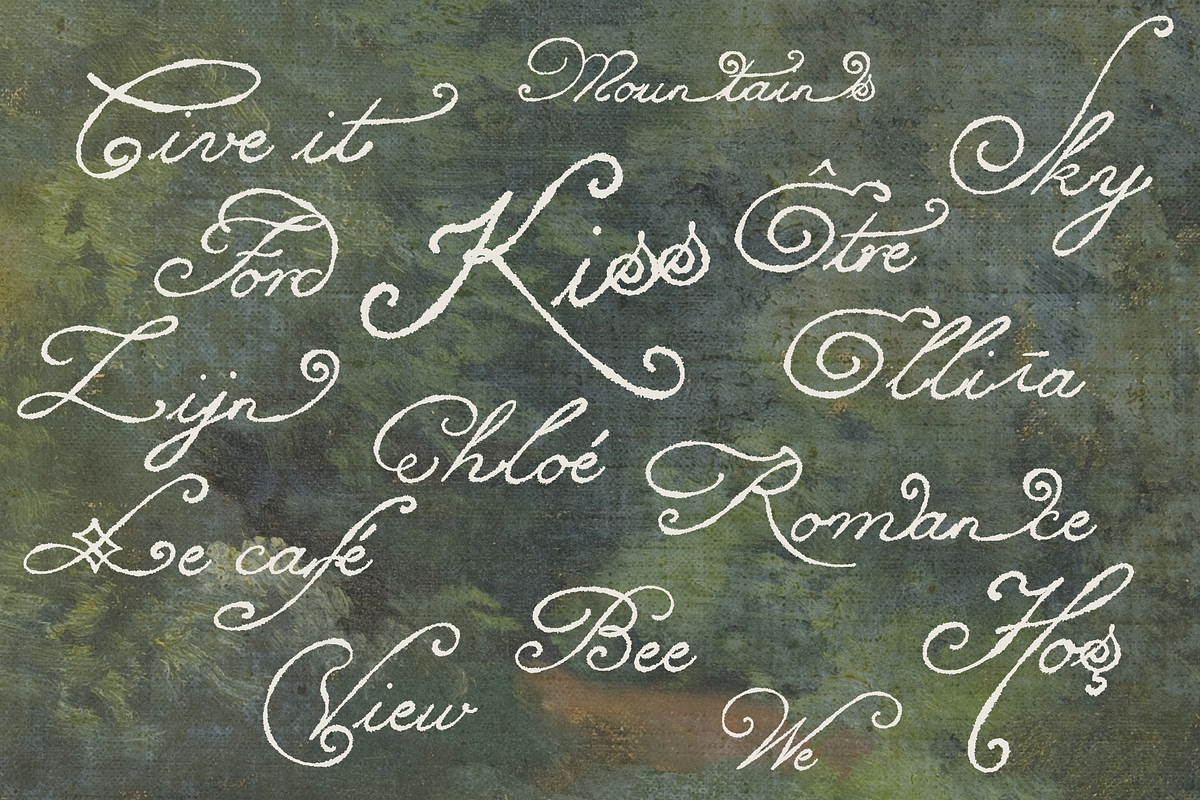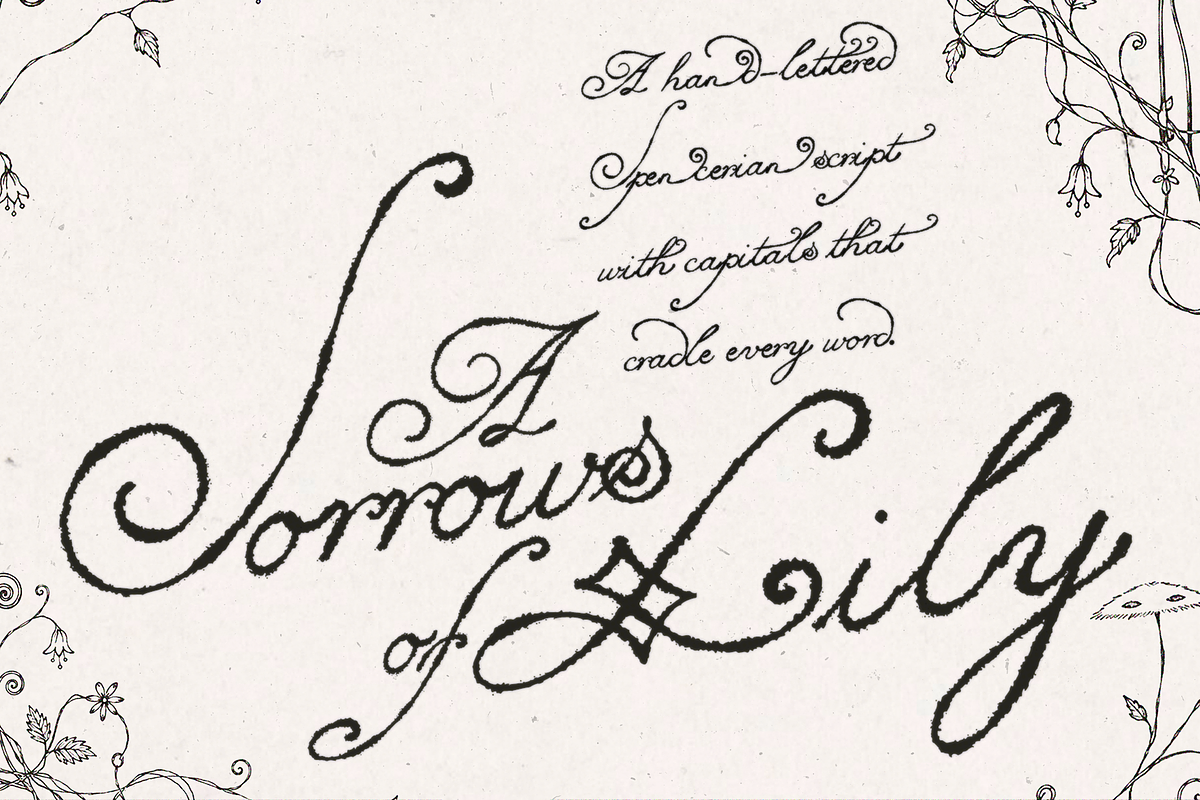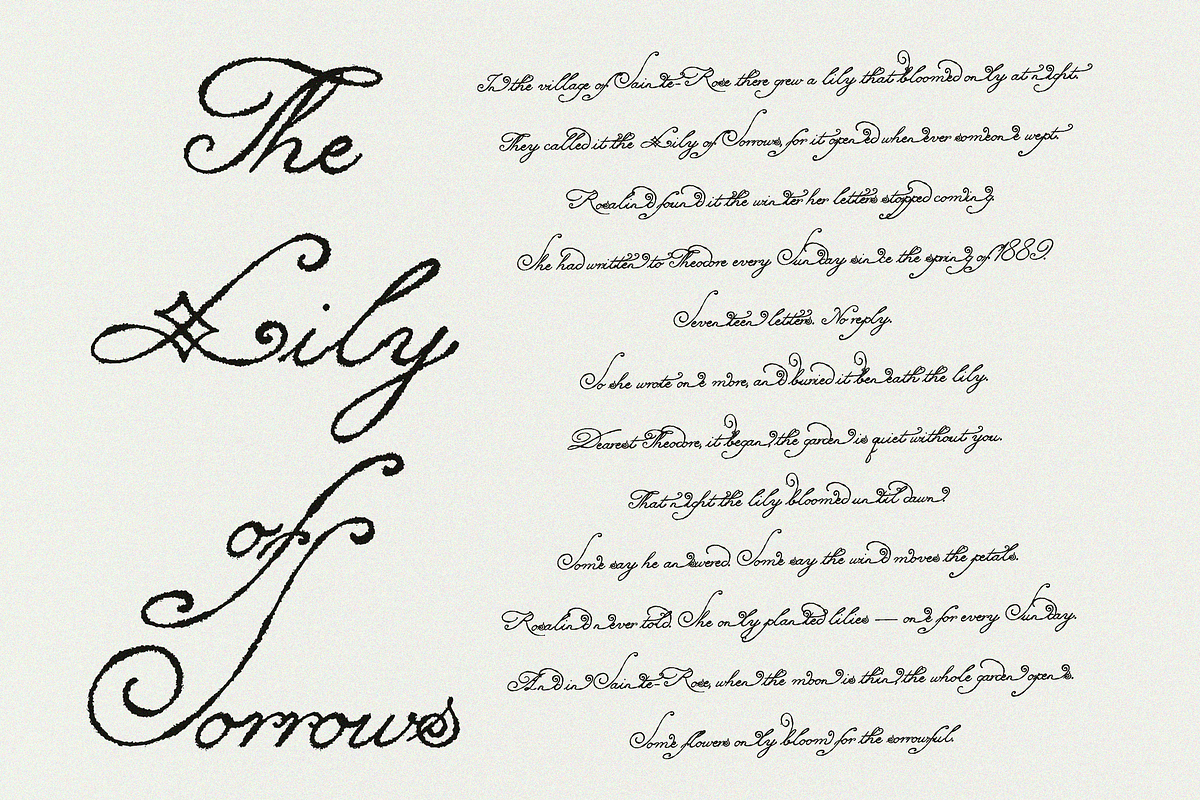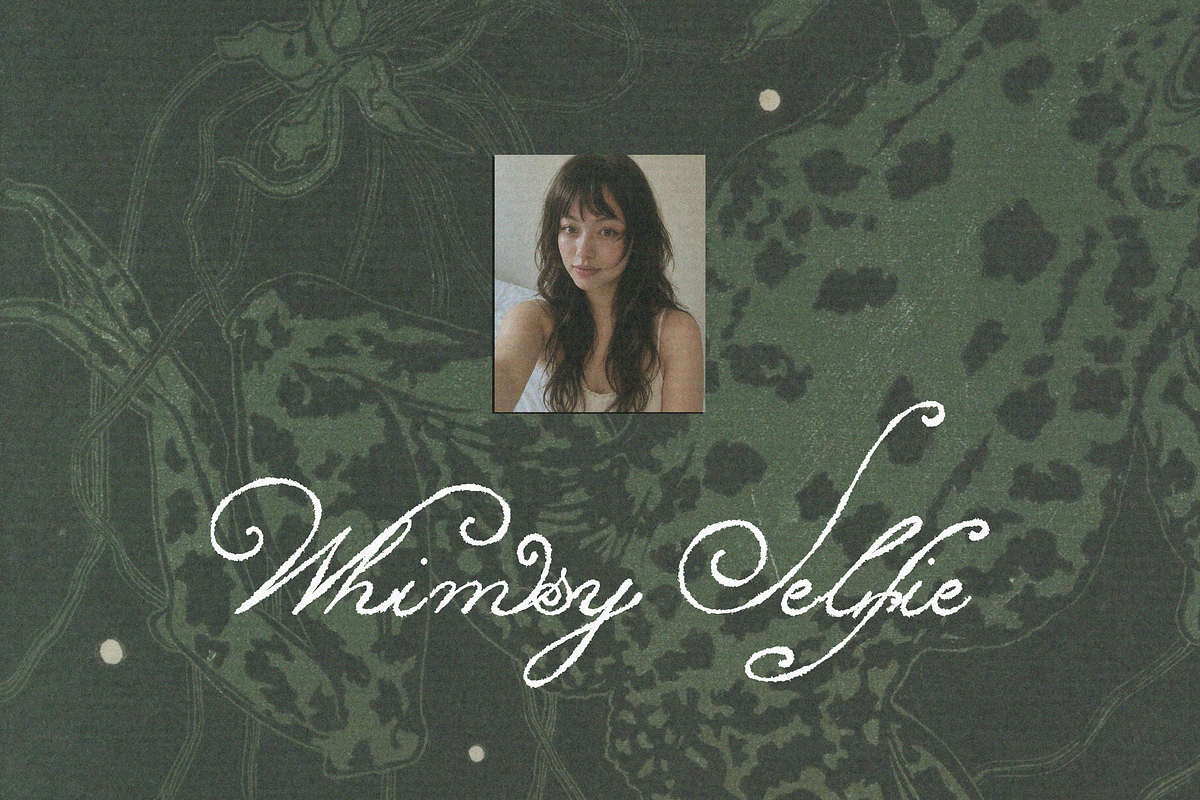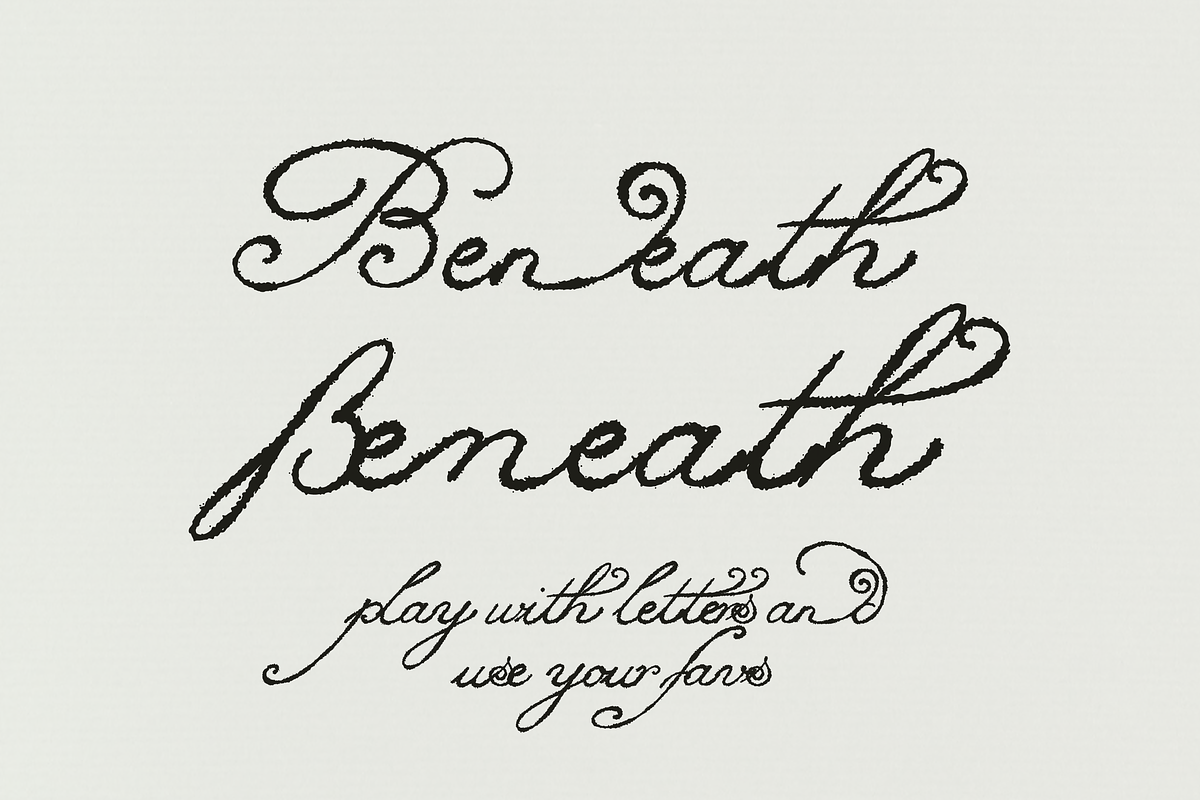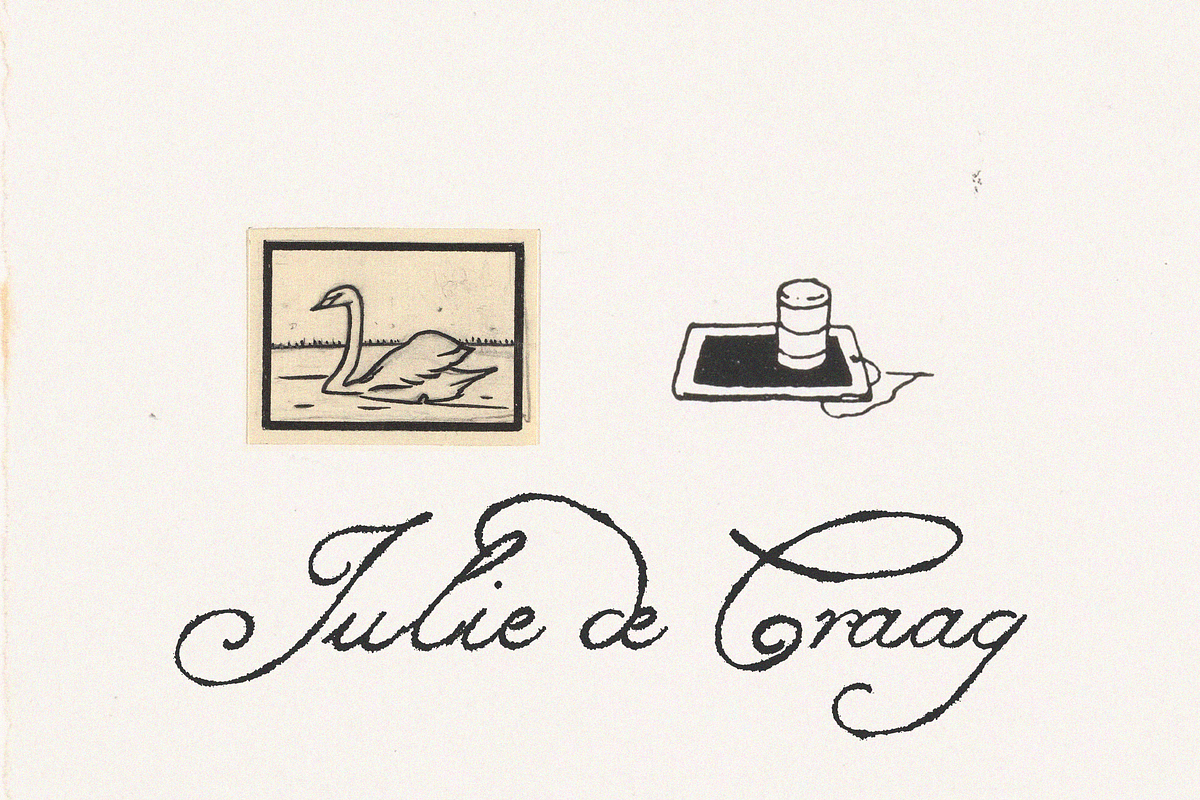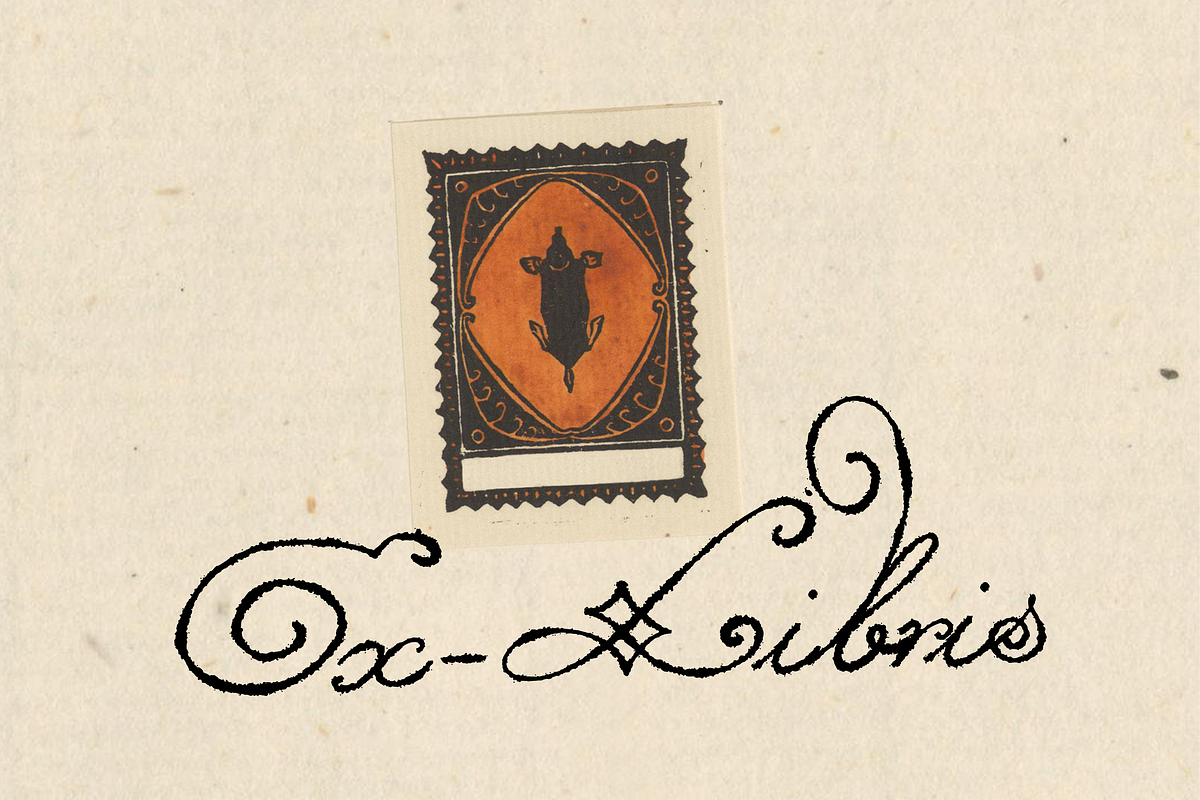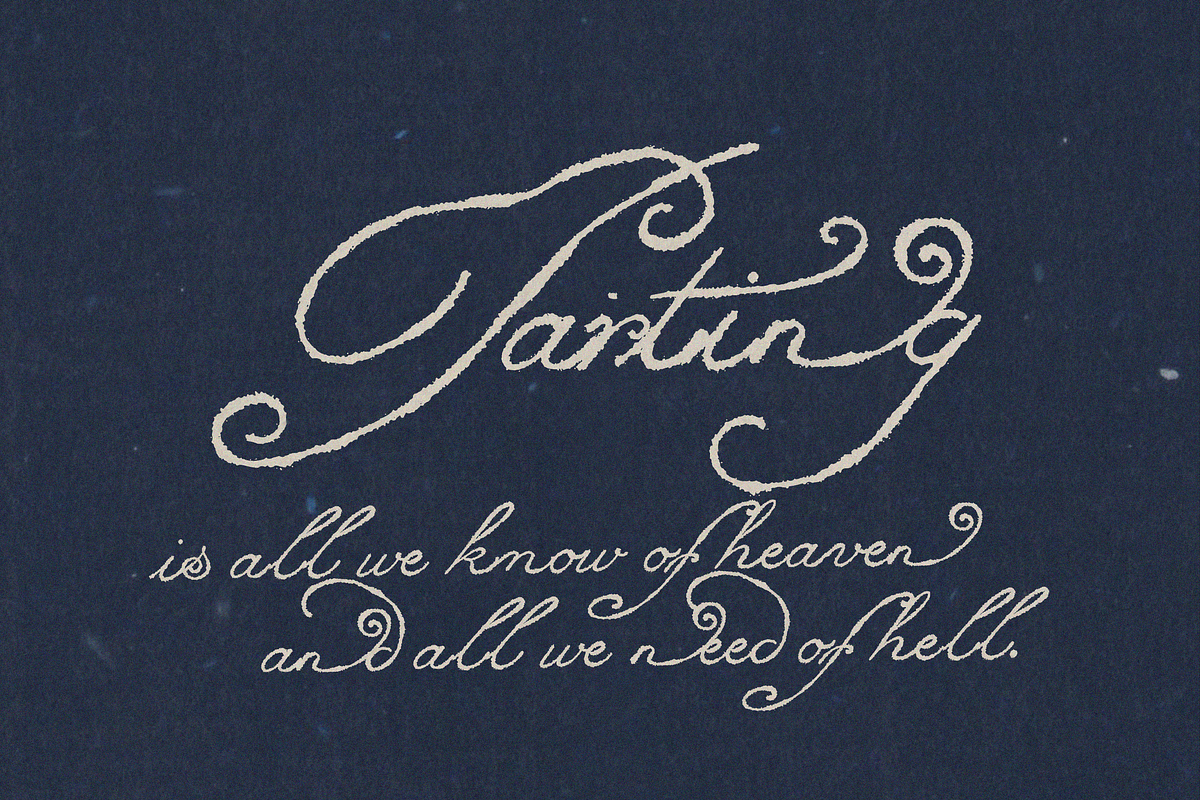
Lily of Sorrows - Spencerian Script
Lily of Sorrows · Spencerian Script (3 styles)
Lily of Sorrows my new hand-drawn Spencerian script with the fragile, mournful elegance of a letter written by candlelight. Every glyph was drawn by hand and traced faithfully the hairline swells, the slight tremor of the nib, and the long weeping tails were kept exactly as they were penned, not smoothed into a digital script. It is a typeface for things that deserve ceremony: wedding suites, memorial and remembrance pieces, gothic and dark-romantic branding, poetry books, perfume and candle labels, tarot decks, album art and anything that wants to feel handwritten and a little haunted.
The family comes in three styles that share the same alphabet, spacing and features, so they can be mixed freely:
Regular - the pure hairline script. Delicate, airy and calligraphic.
Smudgy - the same letters inked with a swelling, rough-edged brush. Grainy, heavy and textured, as if the nib was pressed too hard and the ink bled.
Smudgy Outline - the Smudgy silhouette as a hollow outline. Lovely on dark backgrounds, for layering behind the Regular, or filled with colour and pattern.
The capitals do the talking
The capitals carry sweeping flourishes, and the font is built so the lowercase settles inside them. Contextual alternates (calt) are on by default and quietly adjust the lowercase that follows a capital so the two nest instead of collide. Switch on Interlocking (ss05) and the nesting turns dramatic words tuck deep into the capital swashes for monogram and logo work.
What's inside each style
586 glyphs per style - 1,758 across the family
Uppercase, lowercase, numerals and a full set of hand-drawn punctuation
Alternate lowercase (ss01) - a plainer, quieter lowercase for longer text
Alternate capitals (ss02) - a second set of capitals with different flourishes
Alternate numerals (ss03)
Interlocking (ss05) - dramatic nesting of lowercase into capital flourishes
Stylistic alternates (salt) - cycle through every alternate for a letter from the glyphs panel
24 ornaments and swashes (ornm) - flourishes, dividers and tails to finish a line; also mapped to Private Use codepoints so you can reach them in apps without OpenType feature support
Extensive kerning and proper mark positioning, so accents sit correctly in every style
Language support
Full Latin-1 and Latin Extended-A coverage: 330+ characters supporting Western, Central, Eastern and Northern European languages including French, German, Spanish, Portuguese, Italian, Dutch, Danish, Swedish, Norwegian, Finnish, Icelandic, Polish, Czech, Slovak, Hungarian, Romanian, Croatian, Slovenian, Lithuanian, Latvian, Estonian and Turkish (Ğ İ Ş Ç Ö Ü).
Good for
Wedding invitations and stationery · logos and monograms · gothic, dark-academia and cottagecore branding · book covers and chapter headings · packaging for candles, perfume, tea and apothecary products · tarot and oracle decks · album covers and gig posters · quotes, greeting cards and social media graphics.